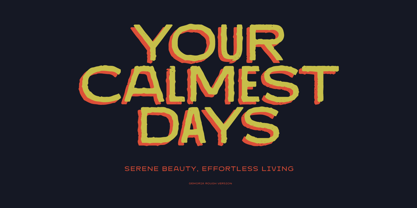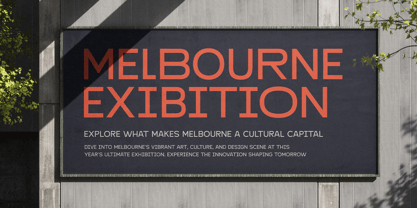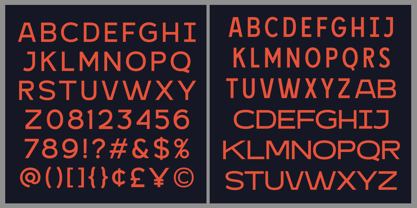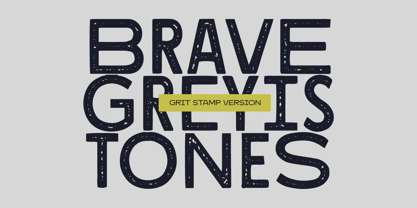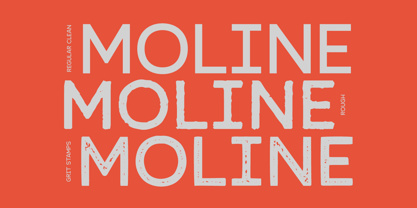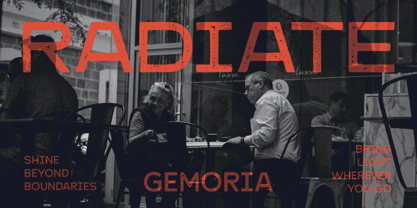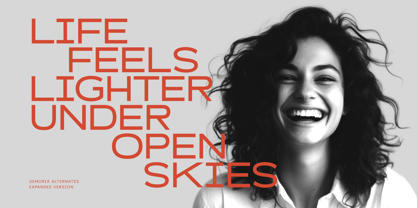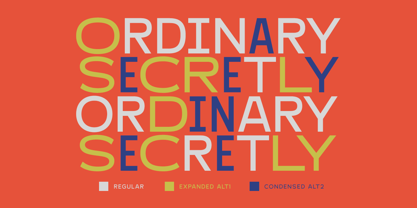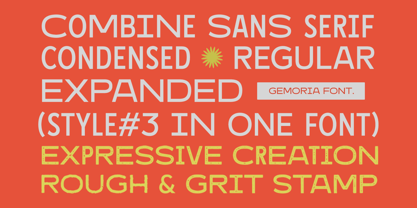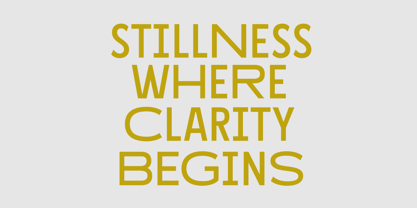
Gemoria
by Letterhend
The Gemoria Font Family was designed by Hendry Juanda and published by Letterhend. Gemoria contains 3 styles and family package options. More about this family
Gemoria is a modern sans serif font family that gives you serious flexibility. With three styles—Regular, Condensed, and Expanded—plus clean and gritty stamp versions, Gemoria lets you mix and match widths and textures for powerful, punchy designs. It’s built for branding, posters, headlines, packaging, and anything that needs a strong visual presence.
Designers: Hendry Juanda
Foundry: Letterhend